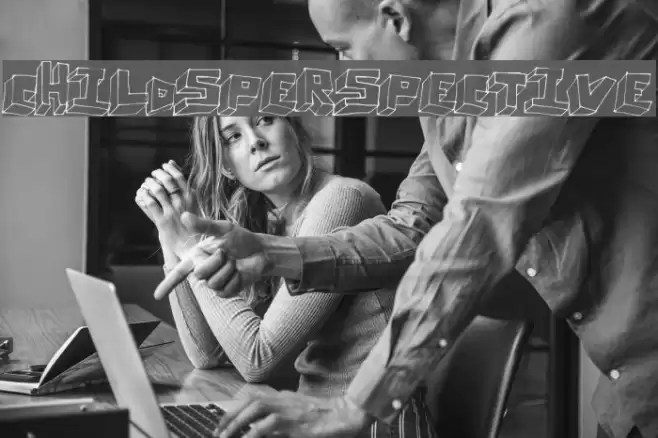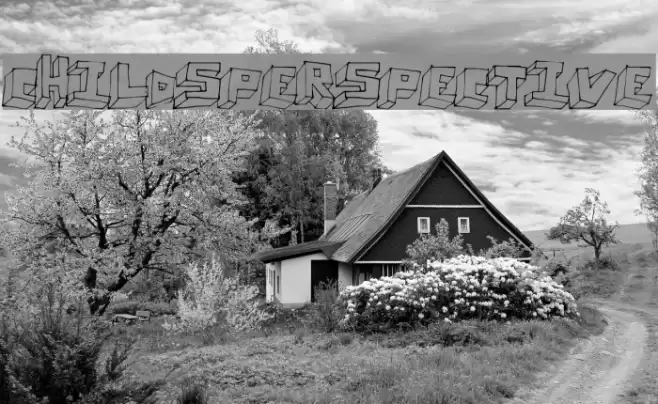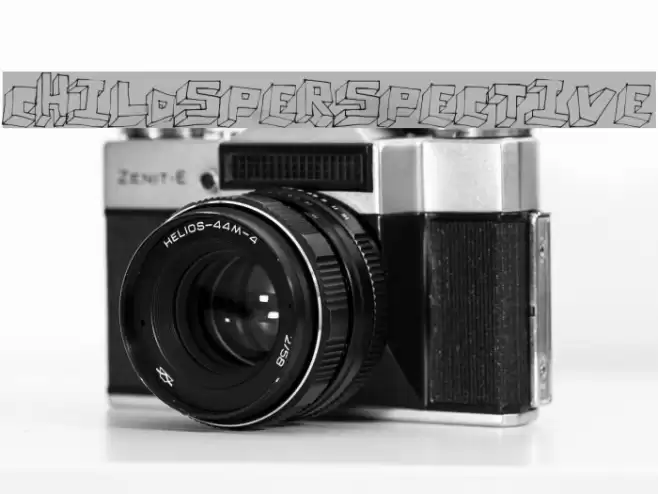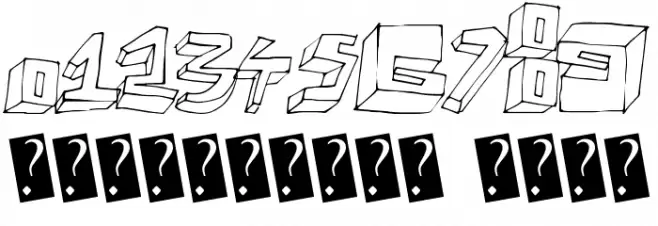
ChildsPerspective Font
ChildsPerspective Description
This font features a playful and dynamic 3D block style, reminiscent of children's building blocks. Each character is designed with a bold, outlined structure that gives a sense of depth and dimension. The letters and numbers appear to be constructed from interlocking pieces, creating a whimsical and engaging visual effect. The font's unique perspective and angular lines make it stand out, offering a sense of movement and creativity. It is particularly suitable for projects that aim to capture a youthful and imaginative spirit.
A playful 3D block-style font with bold outlines and dynamic angles from Cartoon fonts.
- Proposed Projects: Ideal for children's book covers, educational materials, toy packaging, and playful branding.
- Overall Style: Playful, Creative